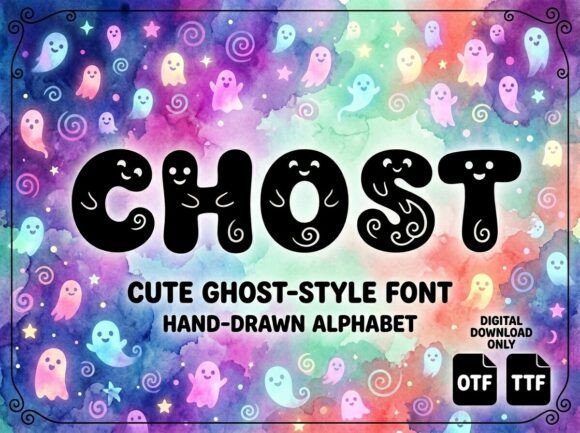
Meet Ghost Font: The Spooky-Cute Addition to Your Design Arsenal
As a designer, I’ve had my fair share of tricky projects. But one that still stands out was when I was tasked with creating a Halloween-themed invitation for a kids’ party. I wanted something that captured the spirit of the season without being too scary or overwhelming. That’s when I stumbled upon Ghost, a whimsical display font that completely turned my design on its head.
Ghost is a playful bold typeface that sculpts every uppercase letter into a chubby, friendly spirit. Each character is packed with individual personality, featuring cute little dot-eyes, smiling expressions, tiny gesturing arms, and whimsical internal tail curls built right into the solid block structures. It’s the perfect blend of spooky and adorable, making it an excellent choice for a wide range of design projects.
An Honest Review of Ghost Font
- ✅ Unique and playful design that’s perfect for Halloween-themed projects
- ✅ Highly legible, even at smaller sizes
- ✅ Works well with a variety of design elements, from soft pastel watercolor backdrops to energetic holiday patterns
- ✅ Perfect for children’s party invitations, spooky season greeting cards, custom vinyl shirt decals, and more
- ⚠️ Limited use outside of Halloween-themed projects, as the font’s design is quite specific
- ⚠️ May not work well with more formal or traditional design elements
The Story Behind Ghost Font
Ghost Font was designed with one goal in mind: to create a font that’s both spooky and adorable. The designer, a self-proclaimed Halloween enthusiast, wanted to capture the spirit of the season without being too scary or overwhelming. The result is a font that’s perfect for a wide range of design projects, from children’s party invitations to spooky season greeting cards.
| What is Ghost Font? | Ghost Font is a whimsical display font featuring cute little ghost characters and illustrations. |